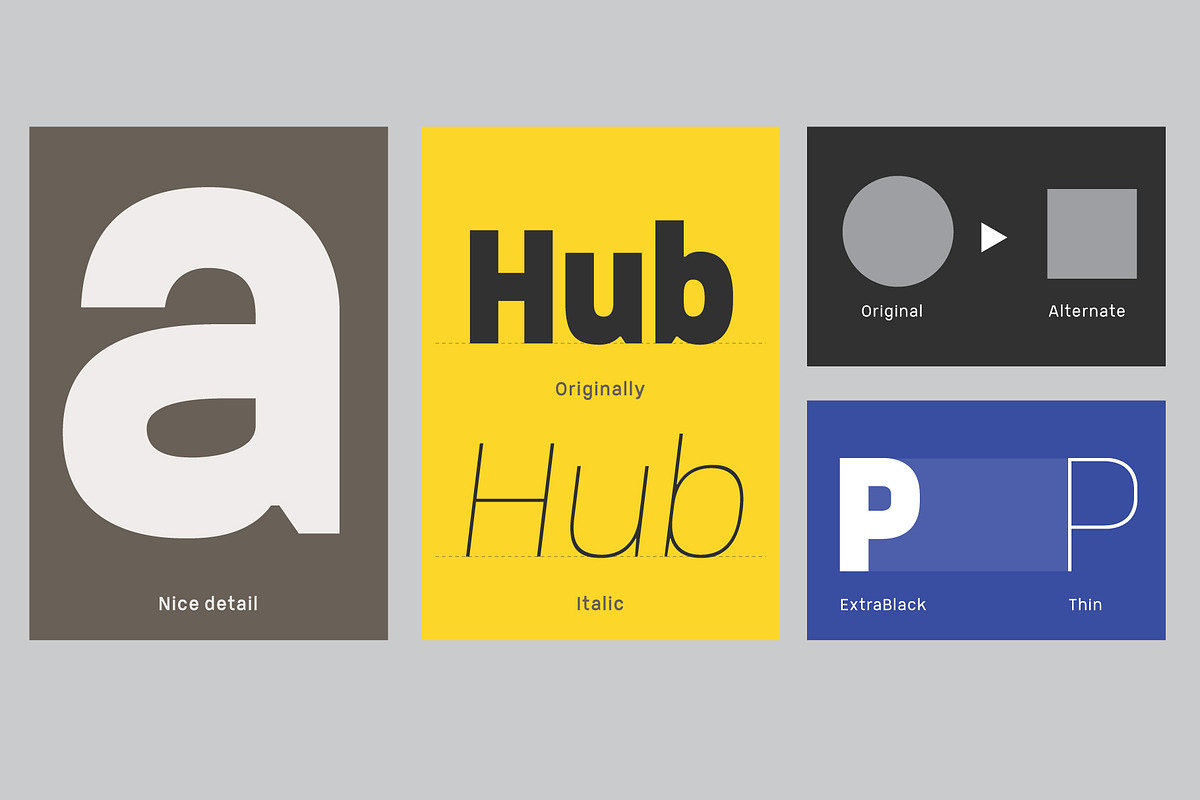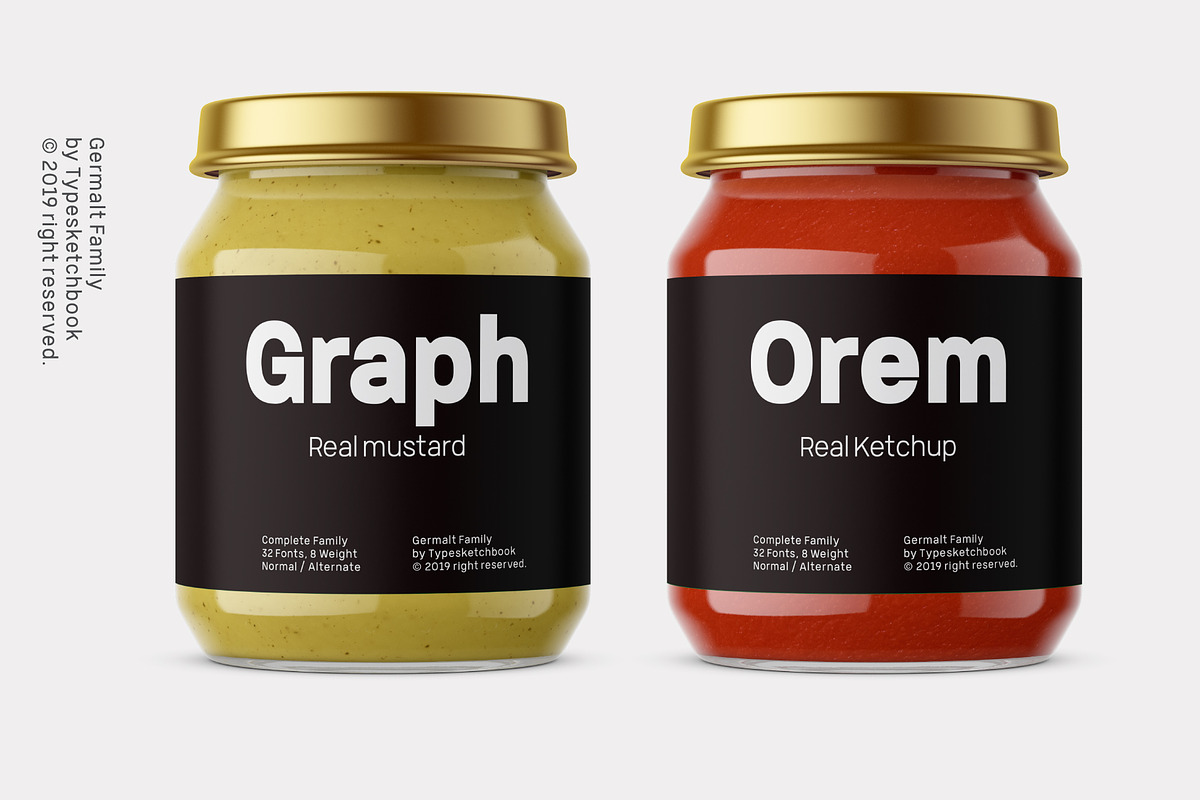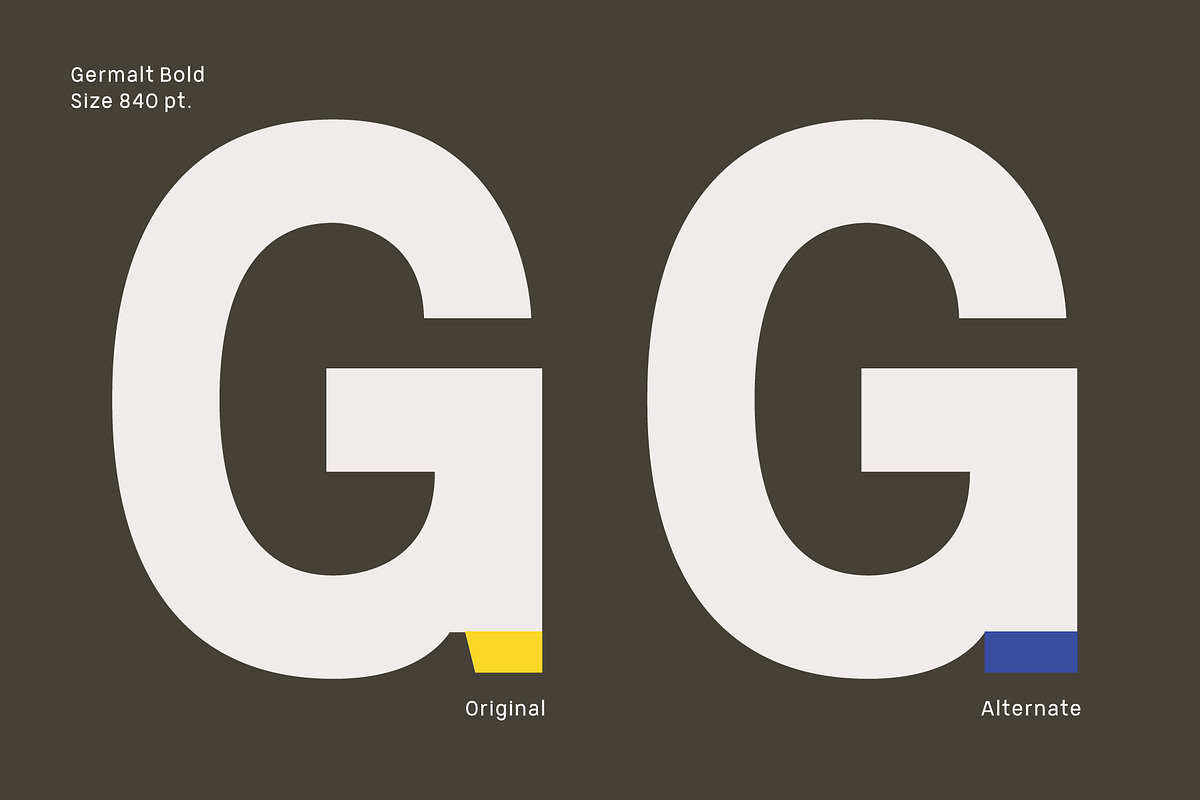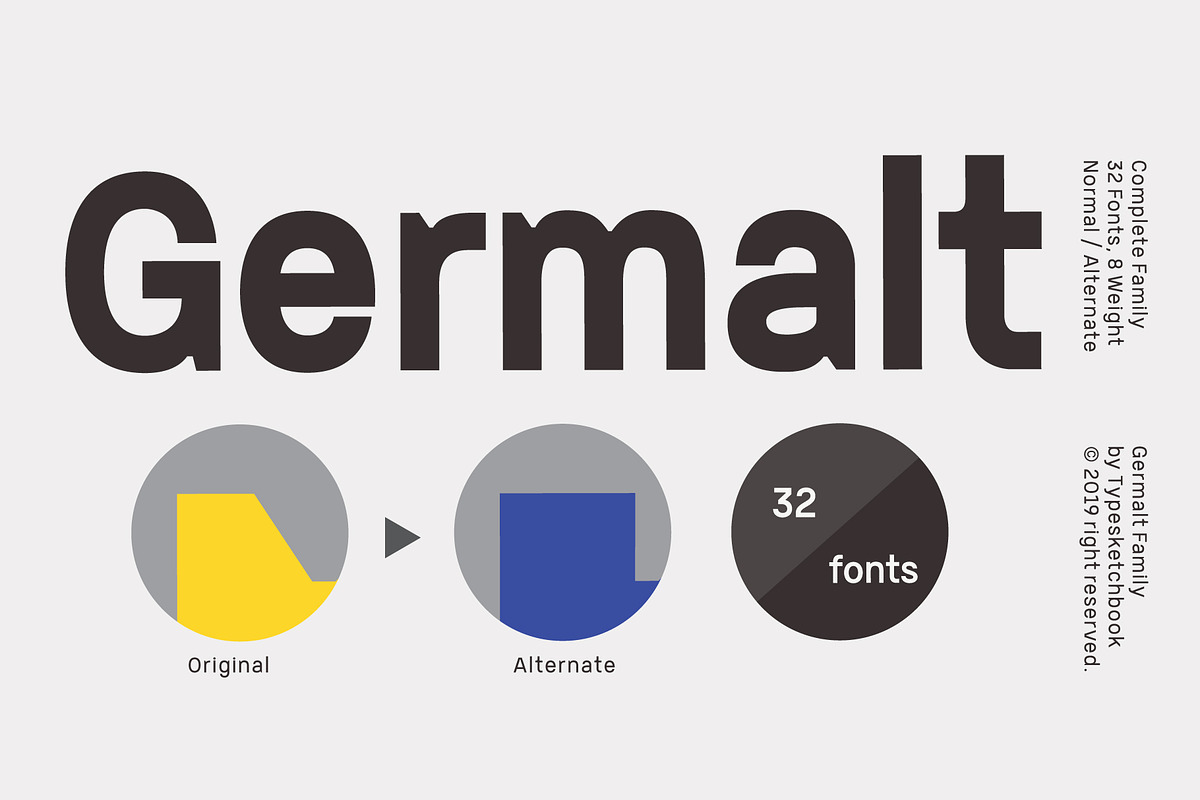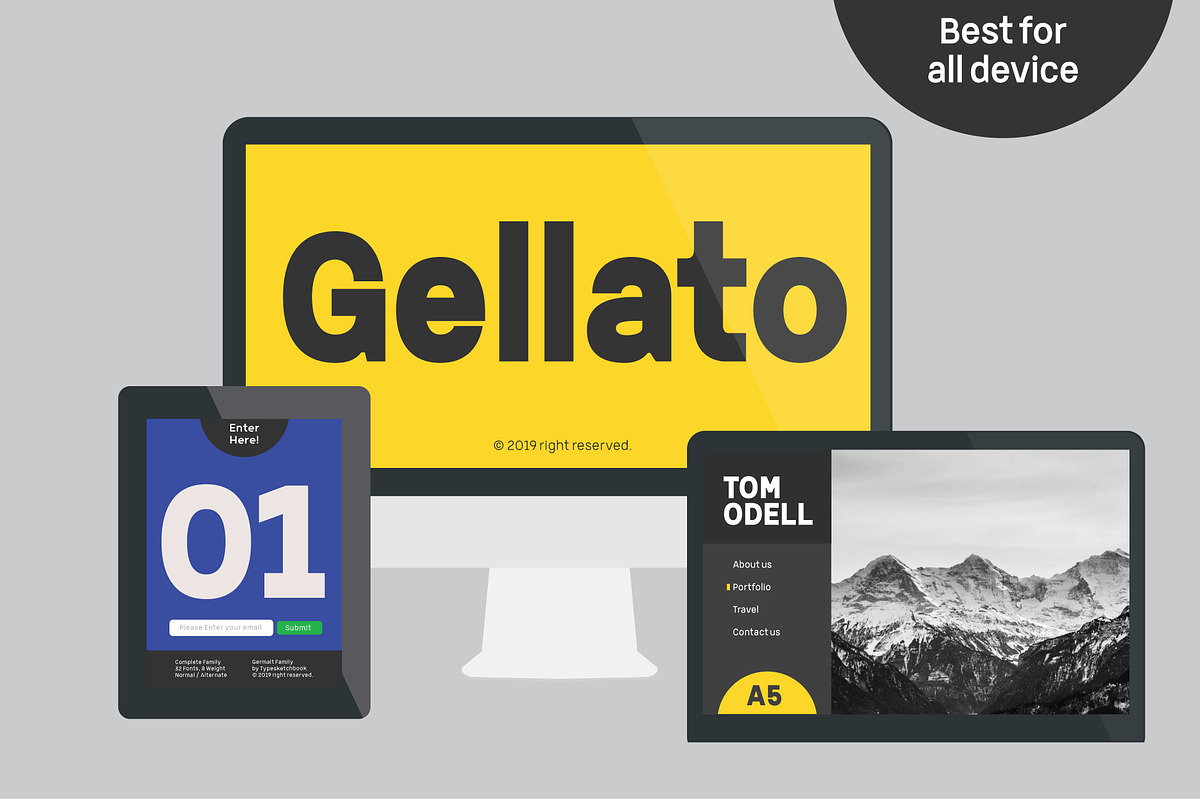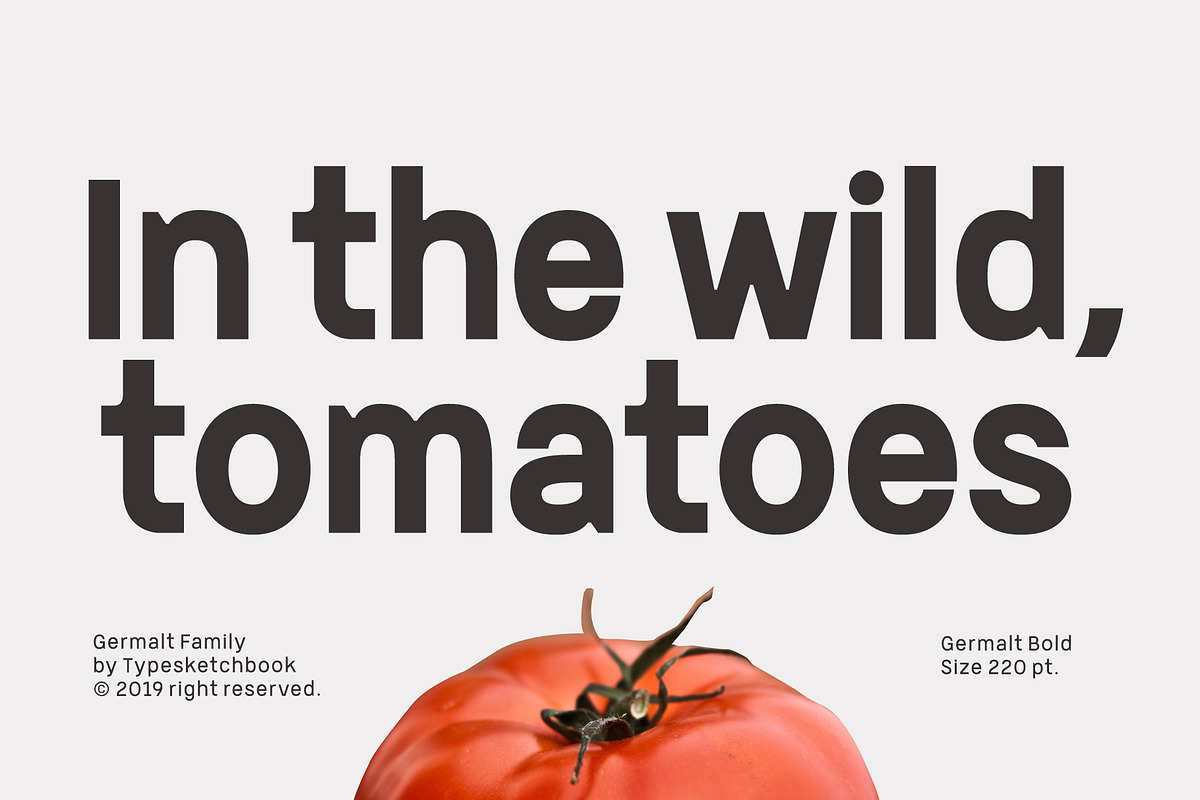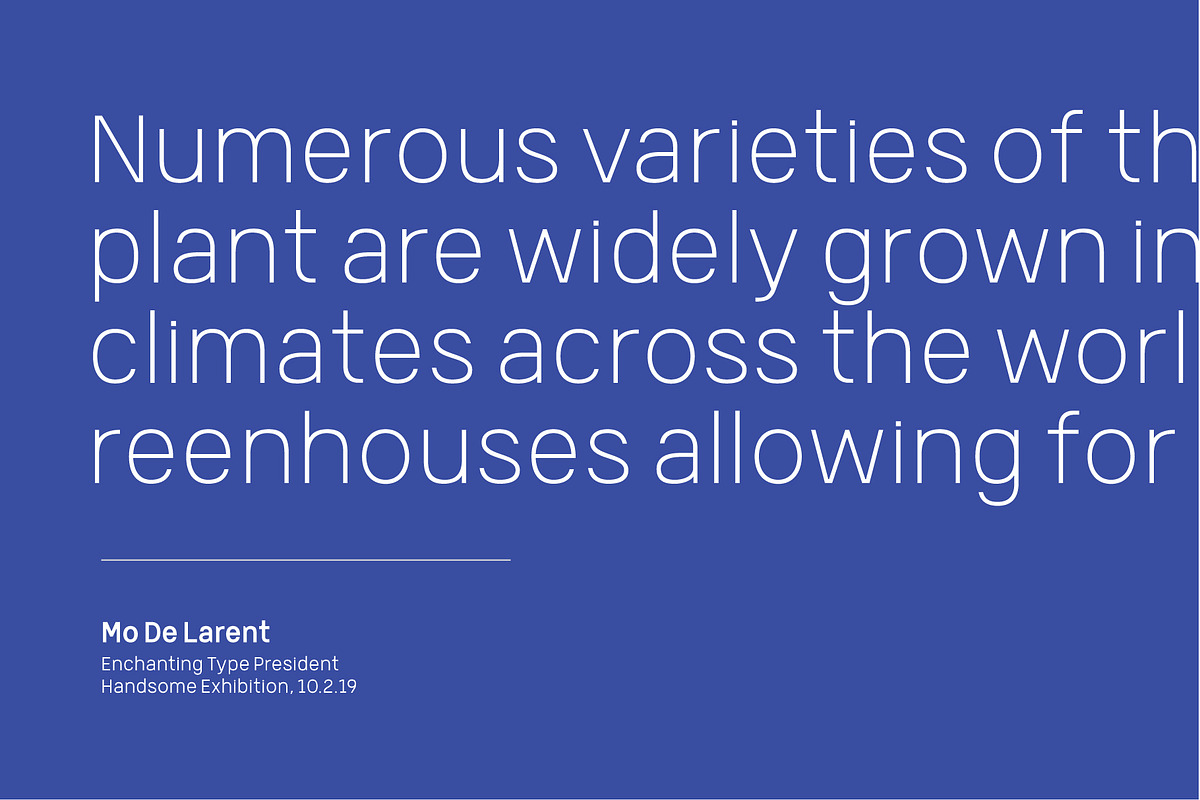
Germalt
Germalt is a geometric typeface made up of 32 fonts across 8 weights with normal and alternate options. It’s a unique and modern sans typeface, which is well suited for a variety of typographic applications such as headlines and small texts. The Germalt font family supports multiple languages and is available as both webfont and desktop font